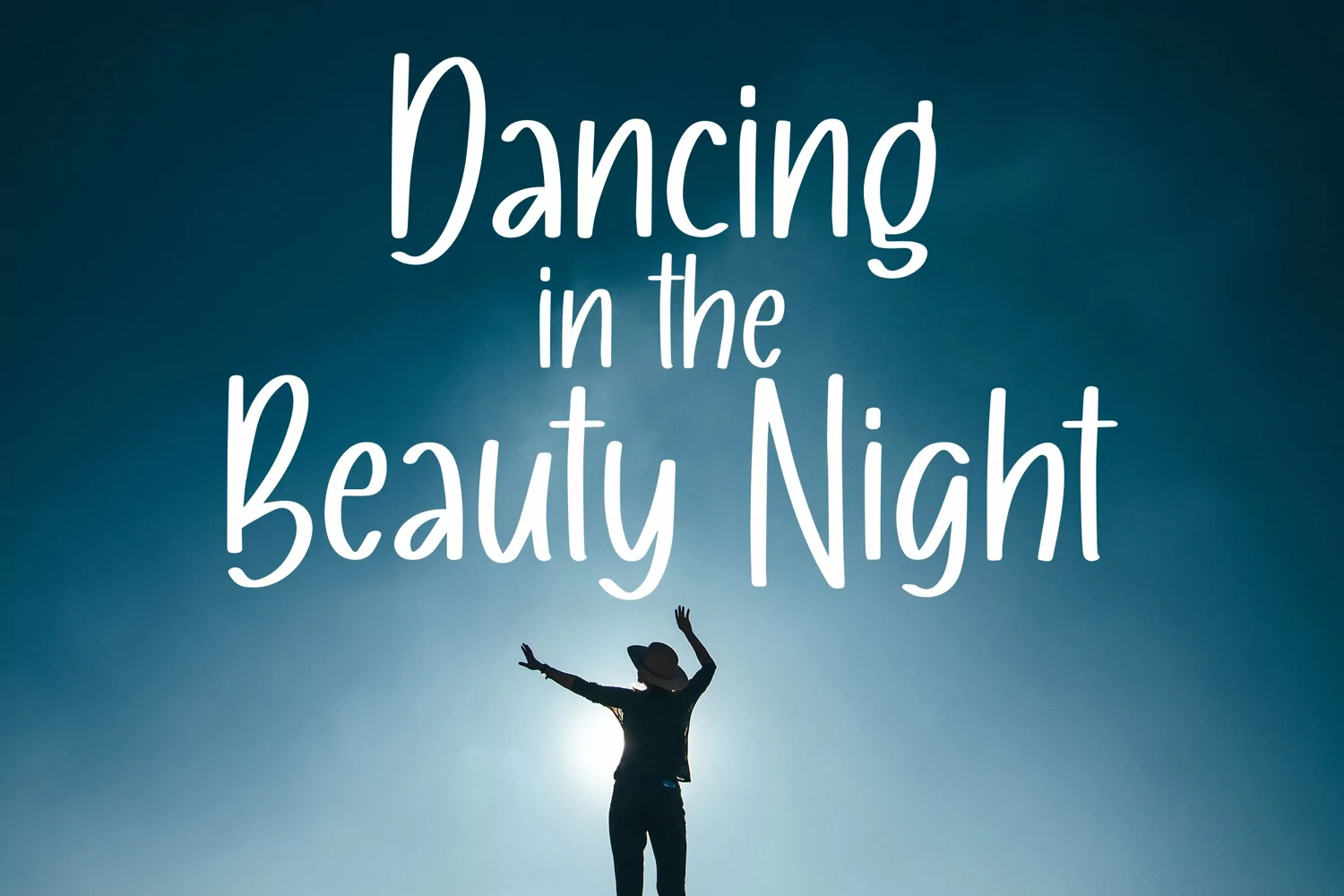
Sweet Moondrops - Beauty Handdrawn Font
Sweet Moondrops - Beauty Handdrawn Font that contain lowercase, uppercase, symbol, and also support multi language. There’s a lot ligatures in this font. This Font also comes with ligatures, alternates and many more. this font suitable for fashion, branding, catalog and other design what you want.